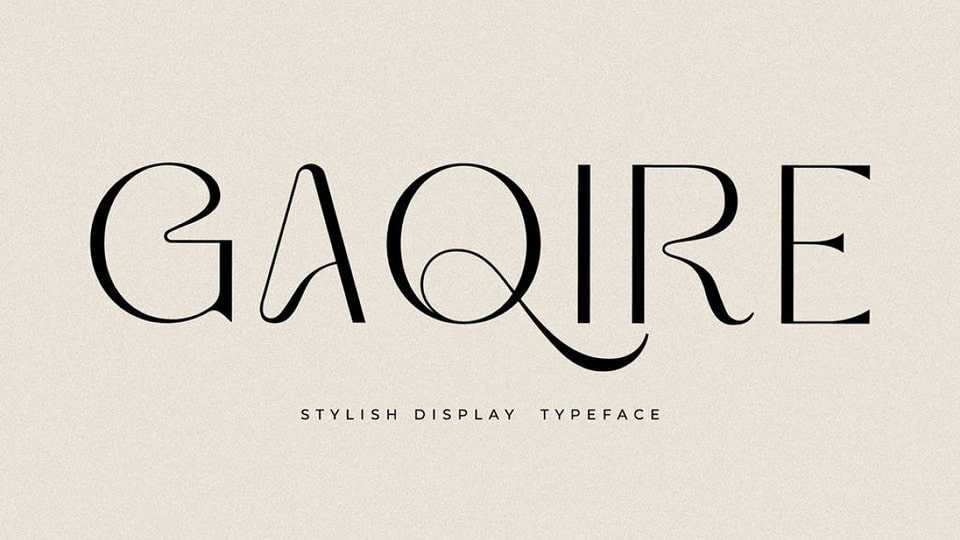
Download Gaqire font, a delicate, charming serif typeface with a fashionable touch. Specially designed for luxury, elegant, feminine projects, Gaqire font is perfectly suitable for creating modern, chic designs.